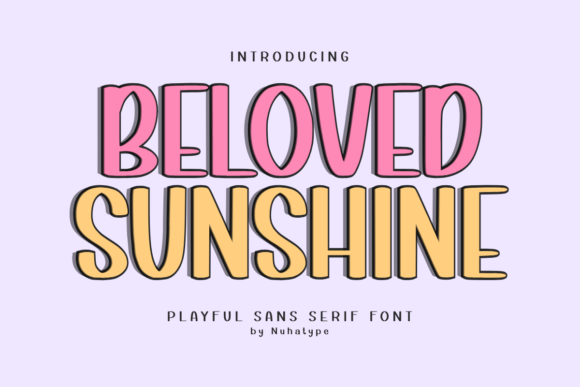
The Joy of Beloved Sunshine Font: A Designer’s New Best Friend
I still remember the day I stumbled upon the perfect font for my craft project. I was working on a custom planner for a client, and I was determined to find a font that would make it stand out. After hours of scrolling through font libraries, I finally found Beloved Sunshine – a cute sans serif handwriting font that instantly captured my heart. Its soft, friendly, and natural look was exactly what I needed to bring a warm, handcrafted feel to my design.
So, what makes Beloved Sunshine so special? Here are a few things that I absolutely adore about this font:
- ✨ Soft and friendly look: Beloved Sunshine has a unique, handcrafted feel that’s perfect for craft projects, planners, stickers, and kids’ worksheets.
- ✅ Easy to read: The simple strokes and smooth curves make it easy on the eyes, even for younger readers.
- ✅ Versatile: This font works beautifully for quotes, greeting cards, kids’ labels, coloring pages, worksheets, bullet journals, scrapbooks, and playful graphic projects.
Of course, no font is perfect, and Beloved Sunshine has a few quirks to keep in mind:
- 🤔 Limited formal use: While Beloved Sunshine is perfect for casual, creative projects, it might not be the best choice for more formal designs, like business presentations or official documents.
The Story Behind Beloved Sunshine
Beloved Sunshine was designed with one goal in mind: to create a font that would bring a warm, handcrafted feel to creative projects. The designer, a passionate lover of handwriting and lettering, wanted to create a font that would be both easy to read and visually appealing. With its soft, friendly look and versatile design, Beloved Sunshine is sure to become a favorite among crafters, designers, and creative hobbyists.